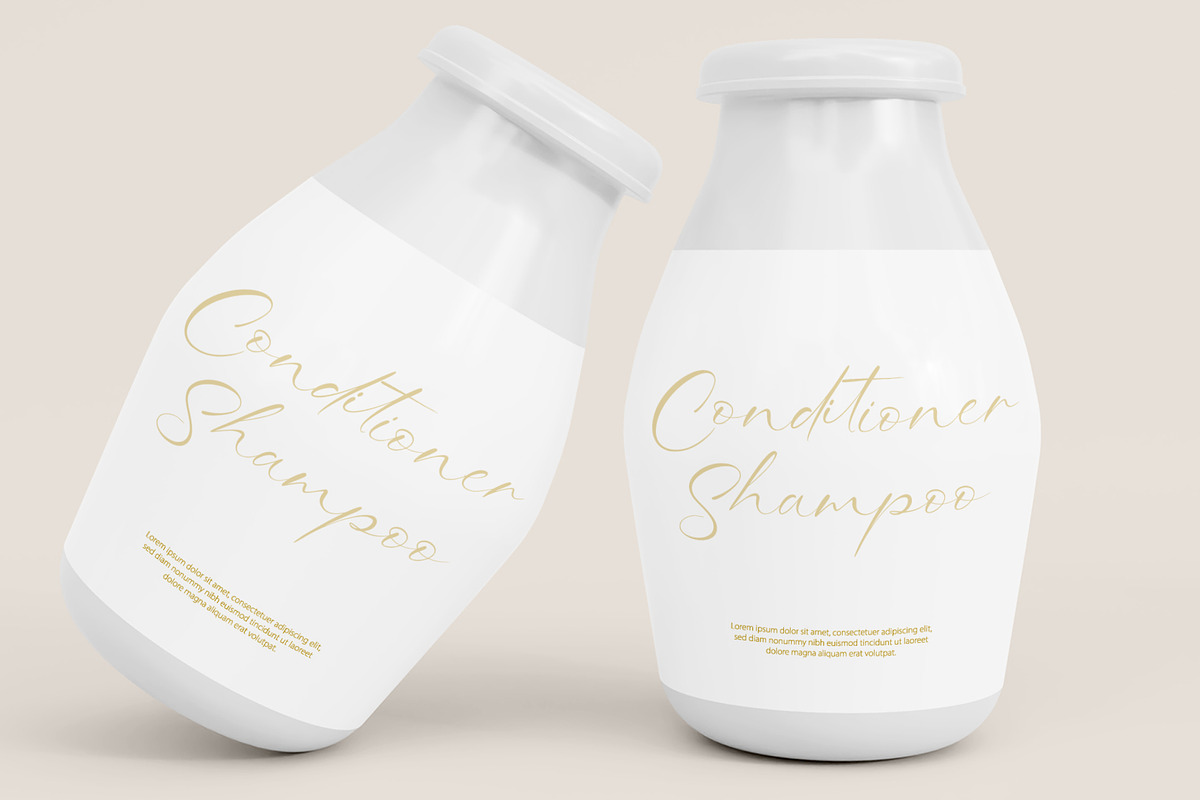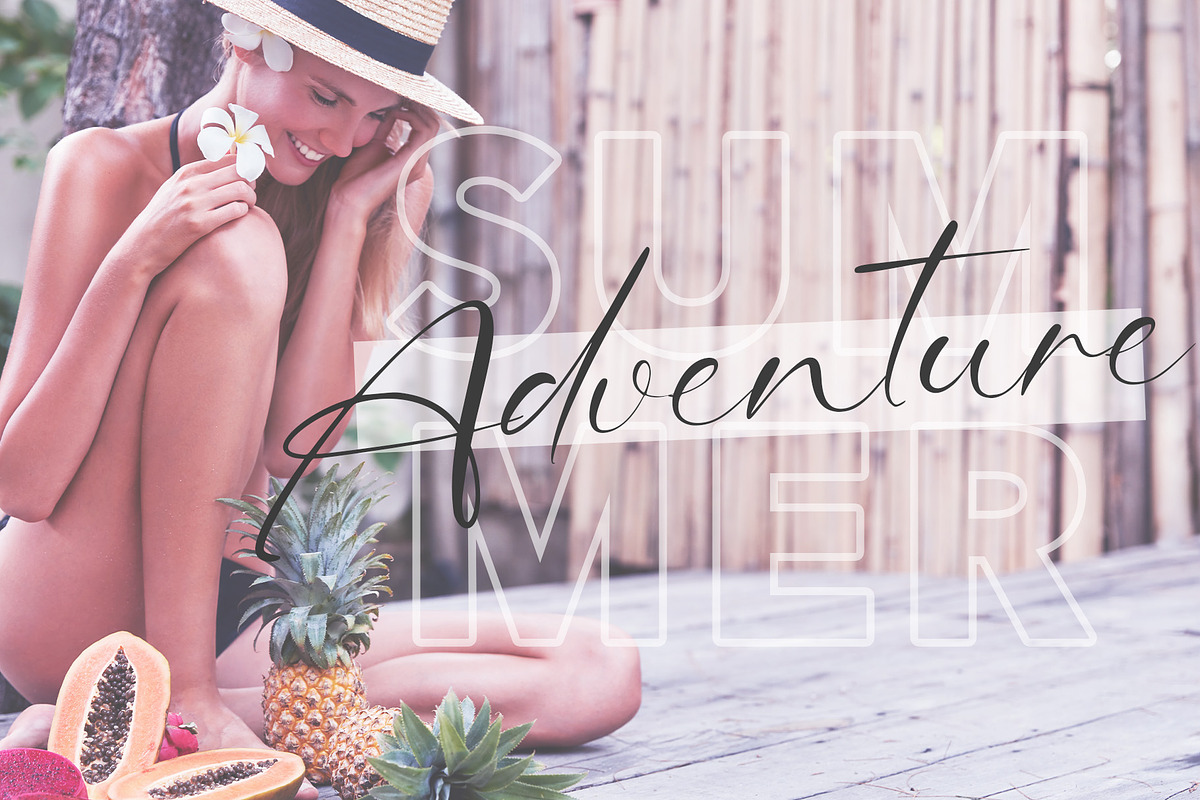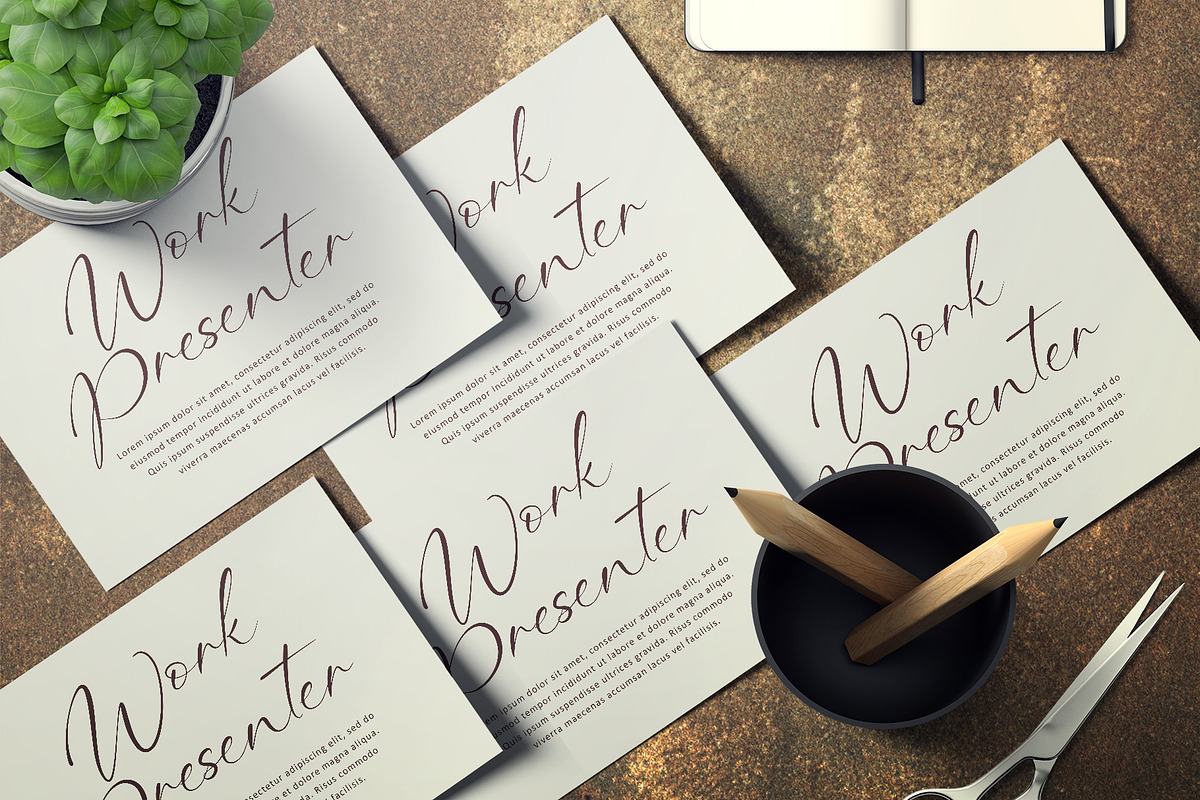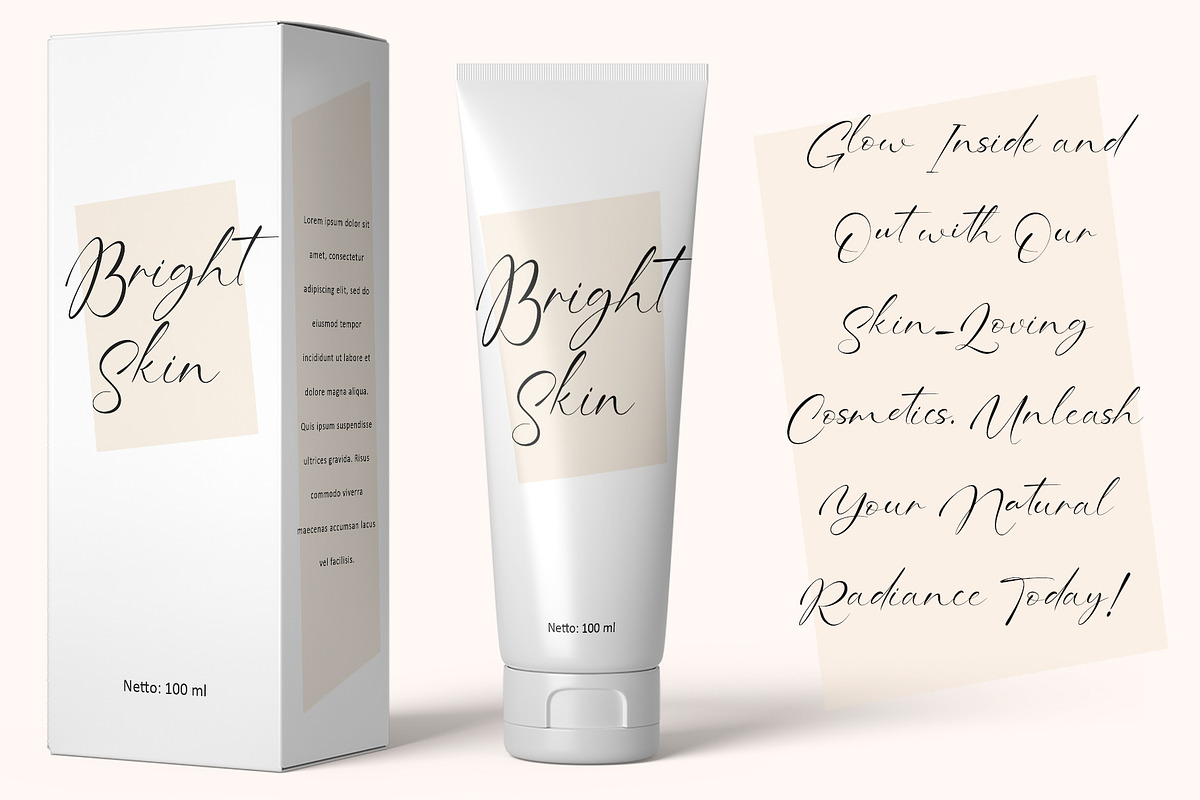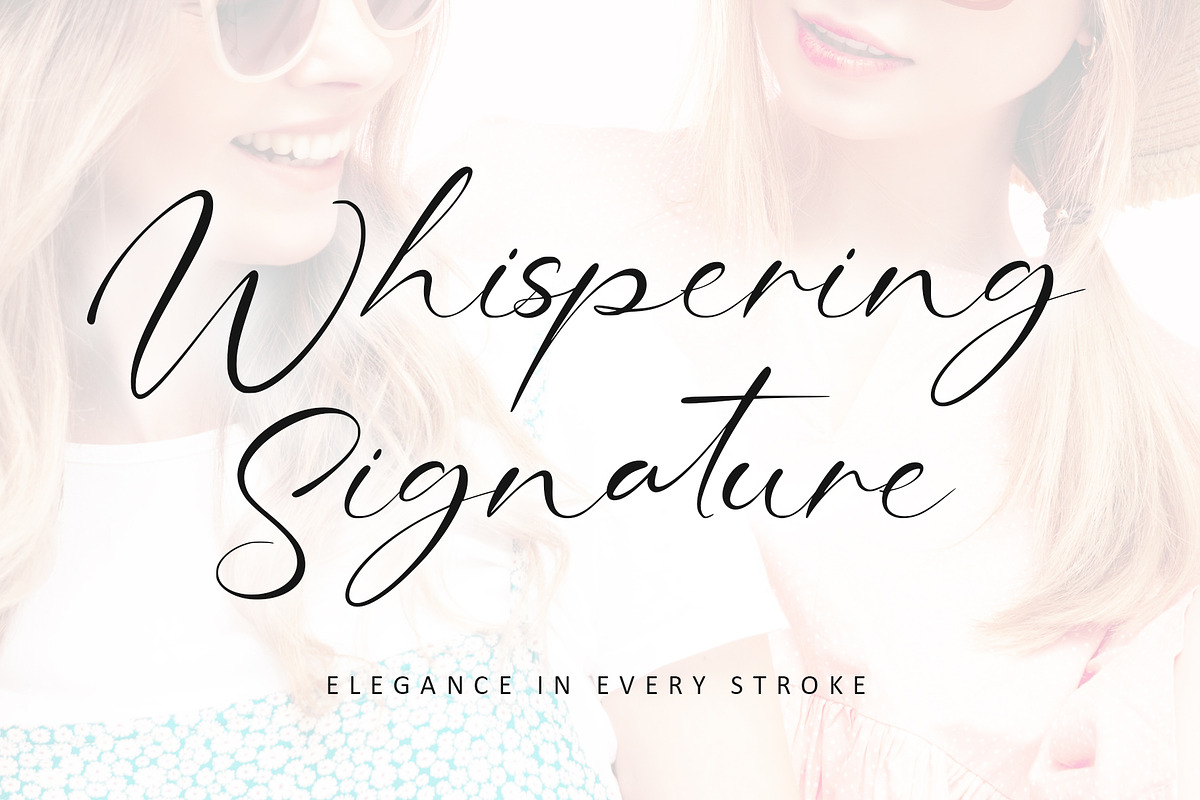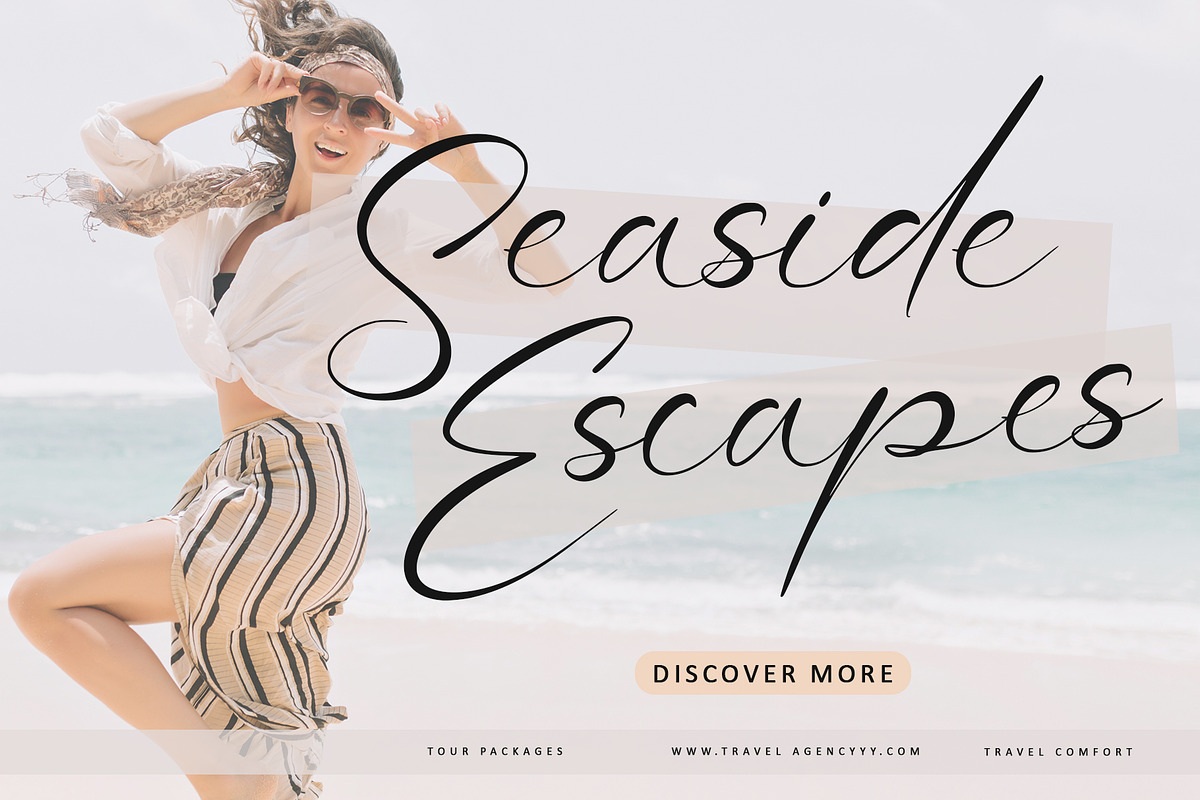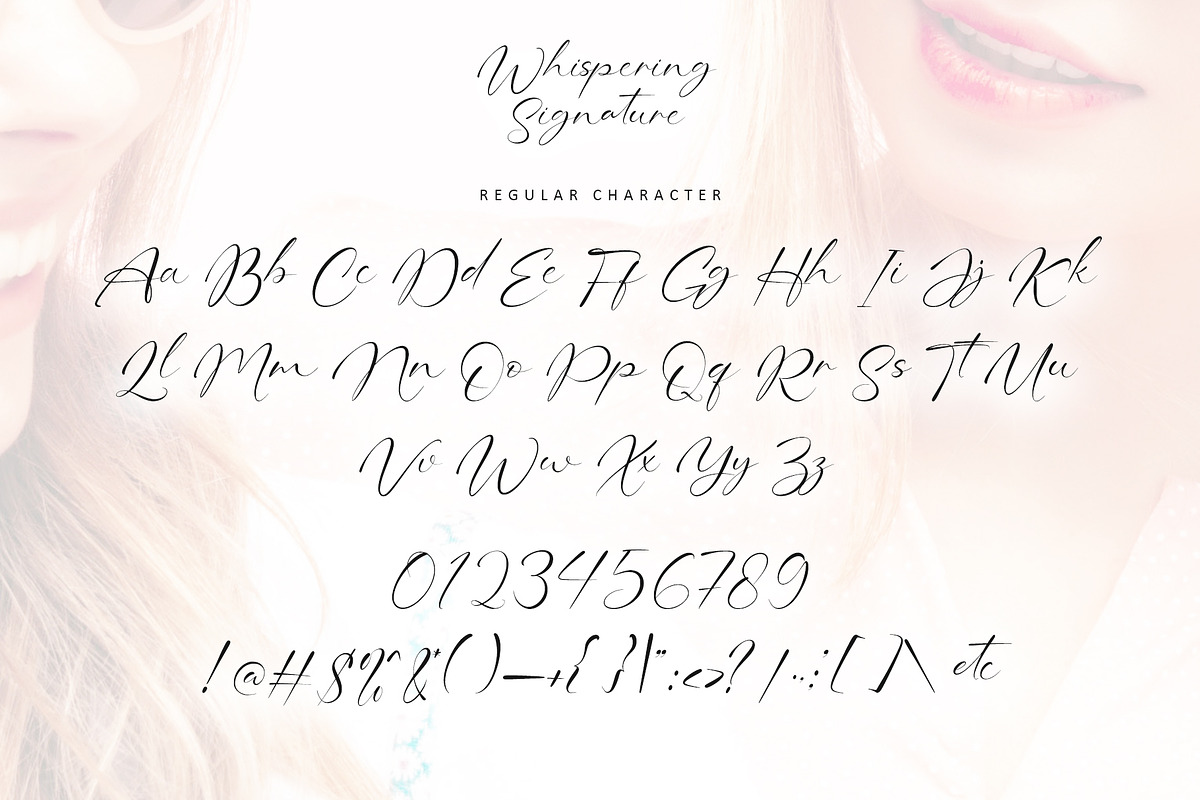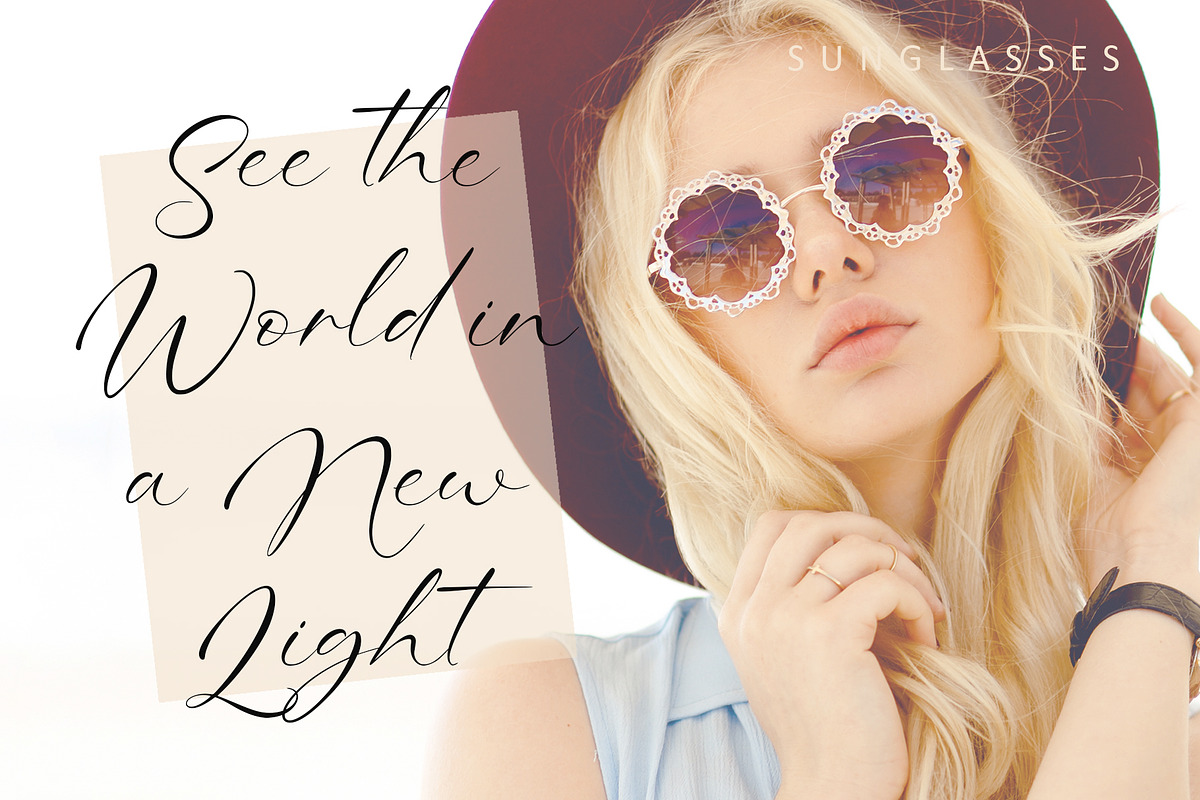
Whispering Signature
Immerse yourself in the delicate allure of Whispering Signature, a handwritten font that breathes elegance into every curve and stroke. Perfect for creating stunning posters, sophisticated branding, elegant packaging, or any project that craves an elegant touch, this font whispers sophistication with a hint of playful charm. With Whispering Signature, your designs will speak volumes, effortlessly capturing attention. The PUA encoding allows seamless access to a wealth of expressive glyphs and swashes, ensuring your creations shine with a truly unique, handcrafted feel. Elevate your work with Whispering Signature, and let every letter tell a story.
Many Features:
- Support multilingual; ä ö ü Ä Ö Ü ß ¿ ¡
- lowercase and uppercase letters
- Alternate, titling & ligature